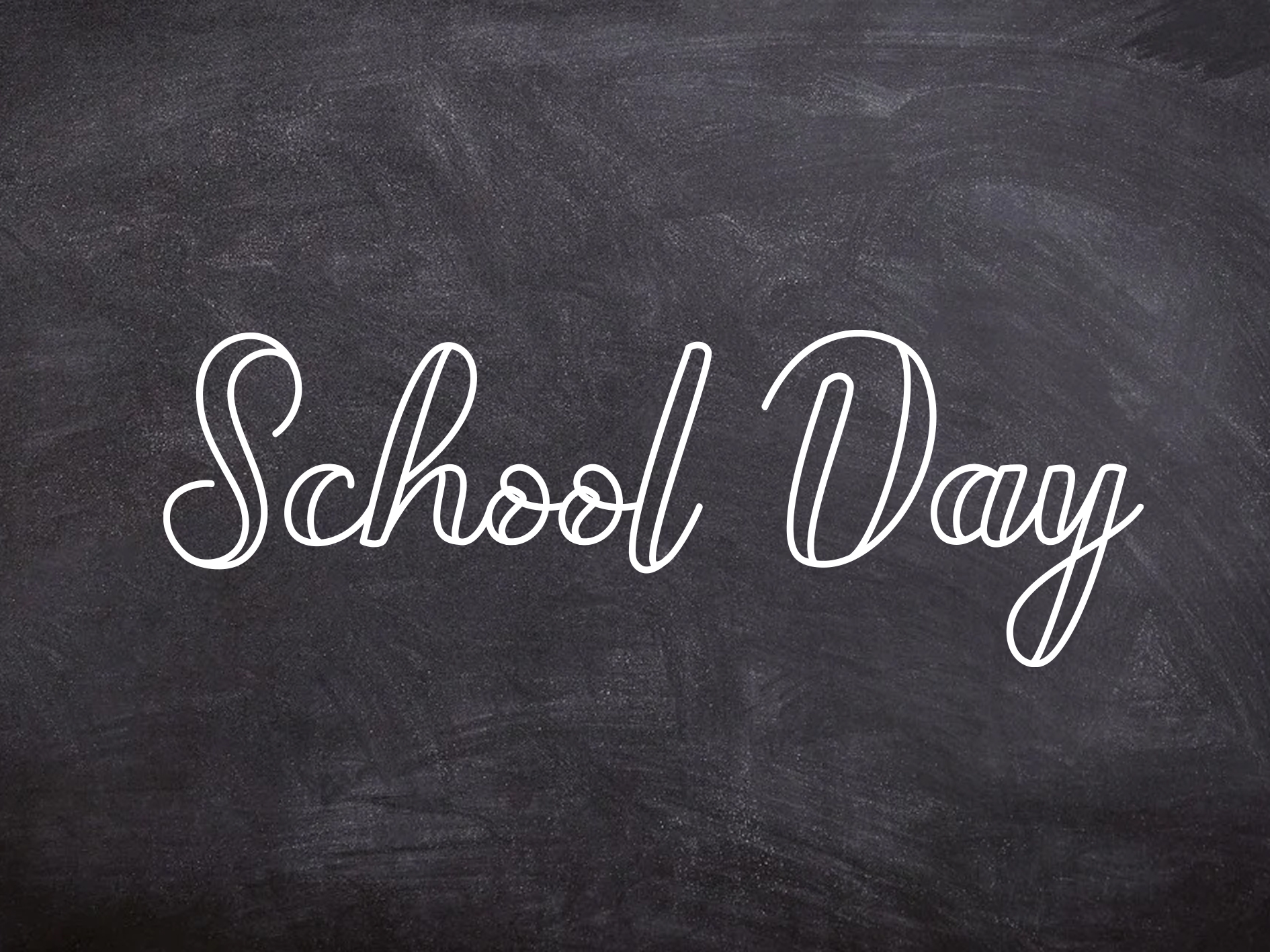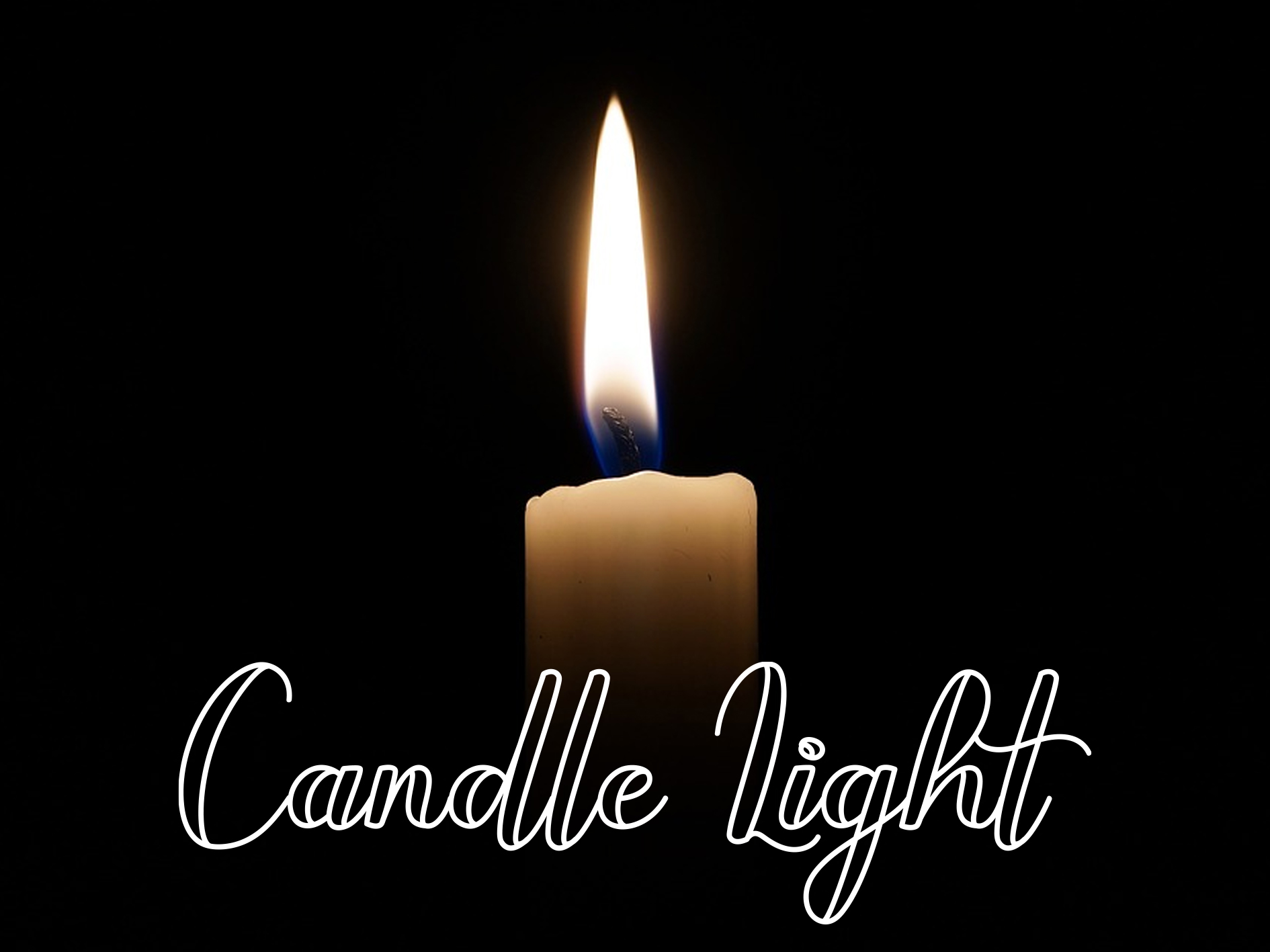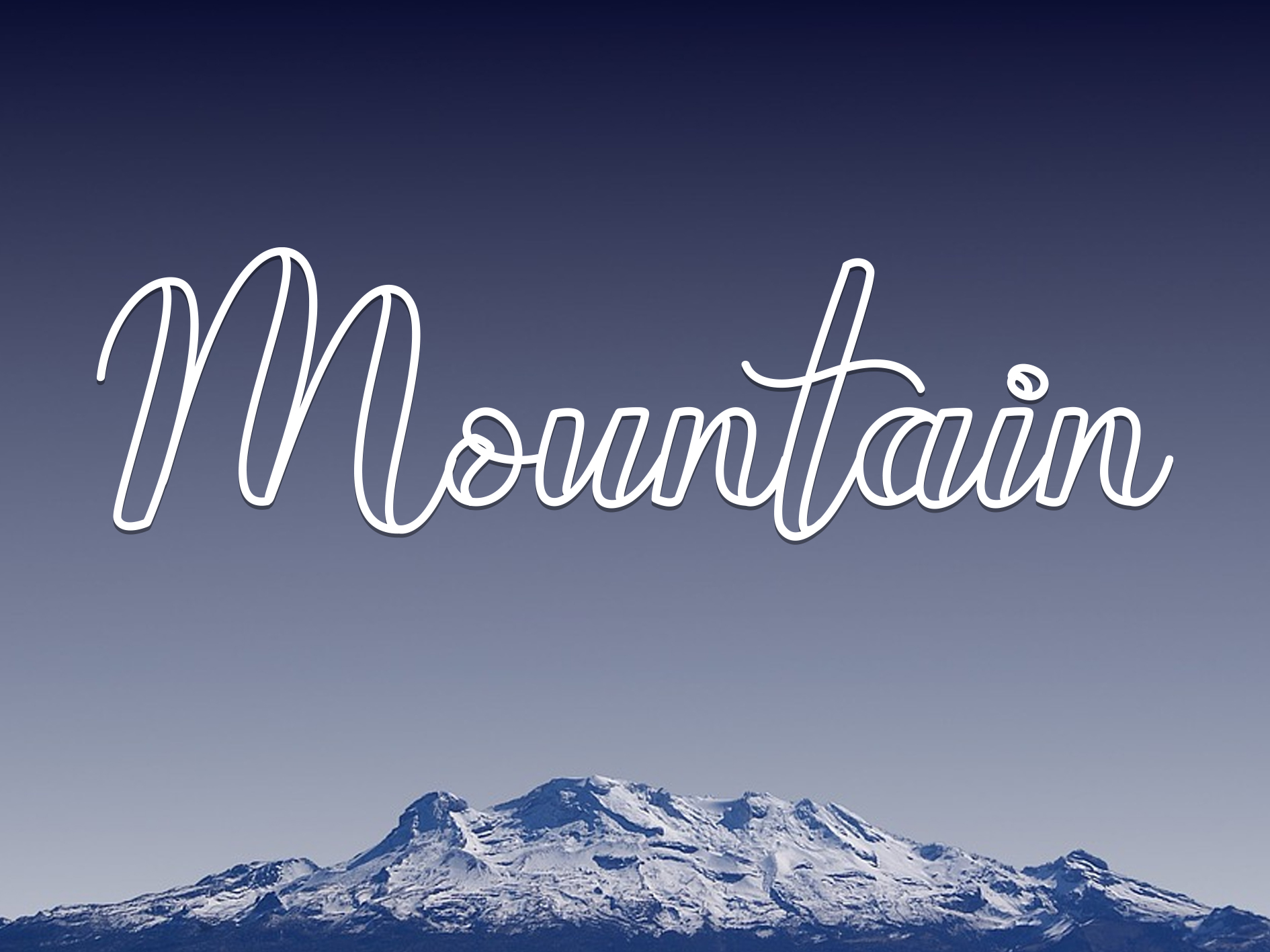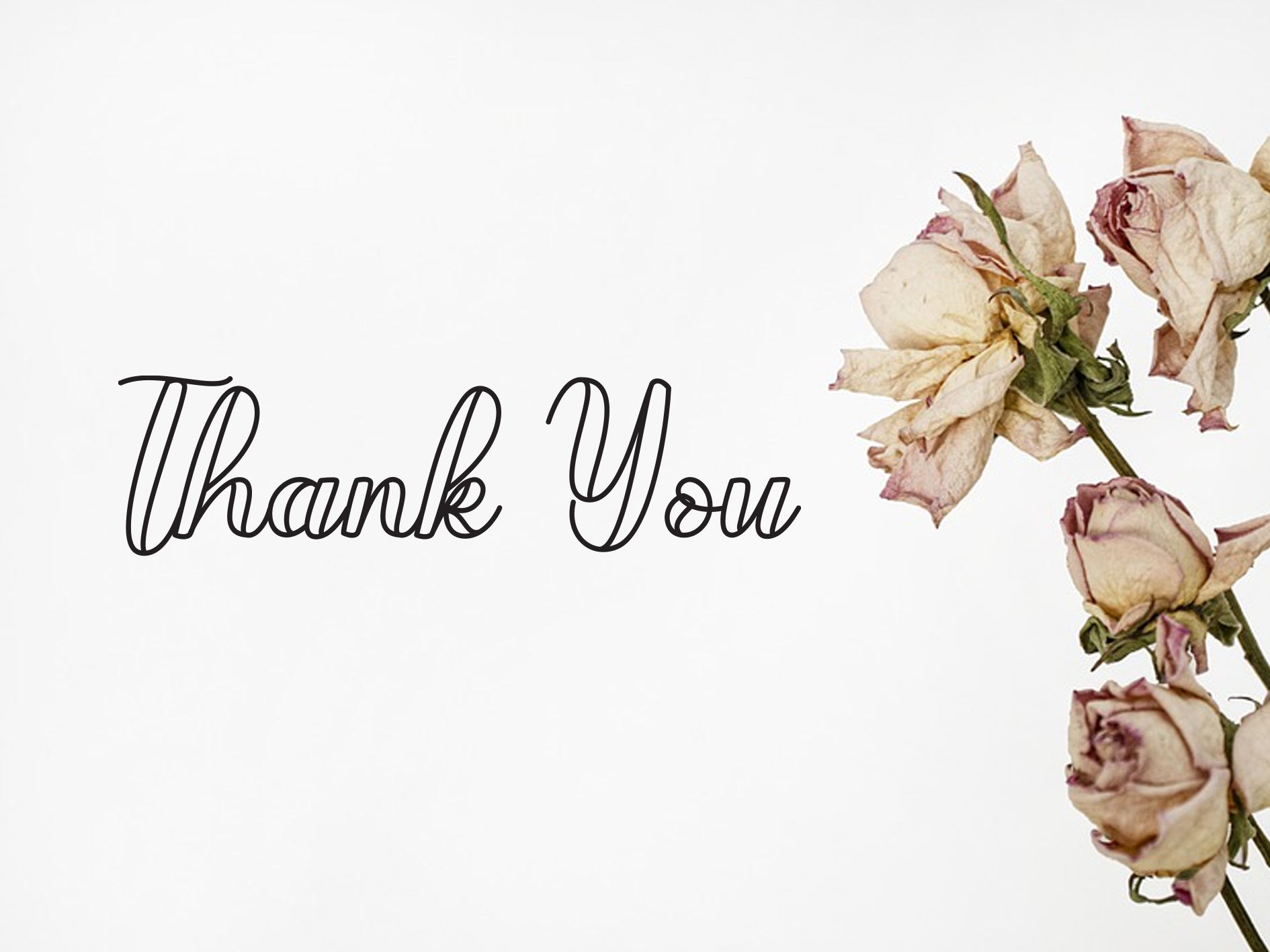
Chiken Script Font
It’s a delicate handwritten font that is carefully crafted for a cool and unique design. This font can be used to write letters, invitations, food products, titles, and more.